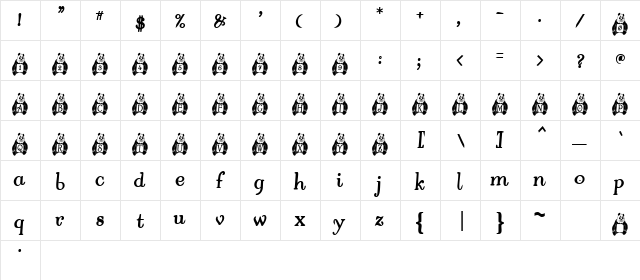
Ailuropodidae Regular
Design Context for Ailuropodidae Typeface
Ailuropodidae is a composed and adaptable typeface that performs quietly and consistently across a wide range of design contexts.